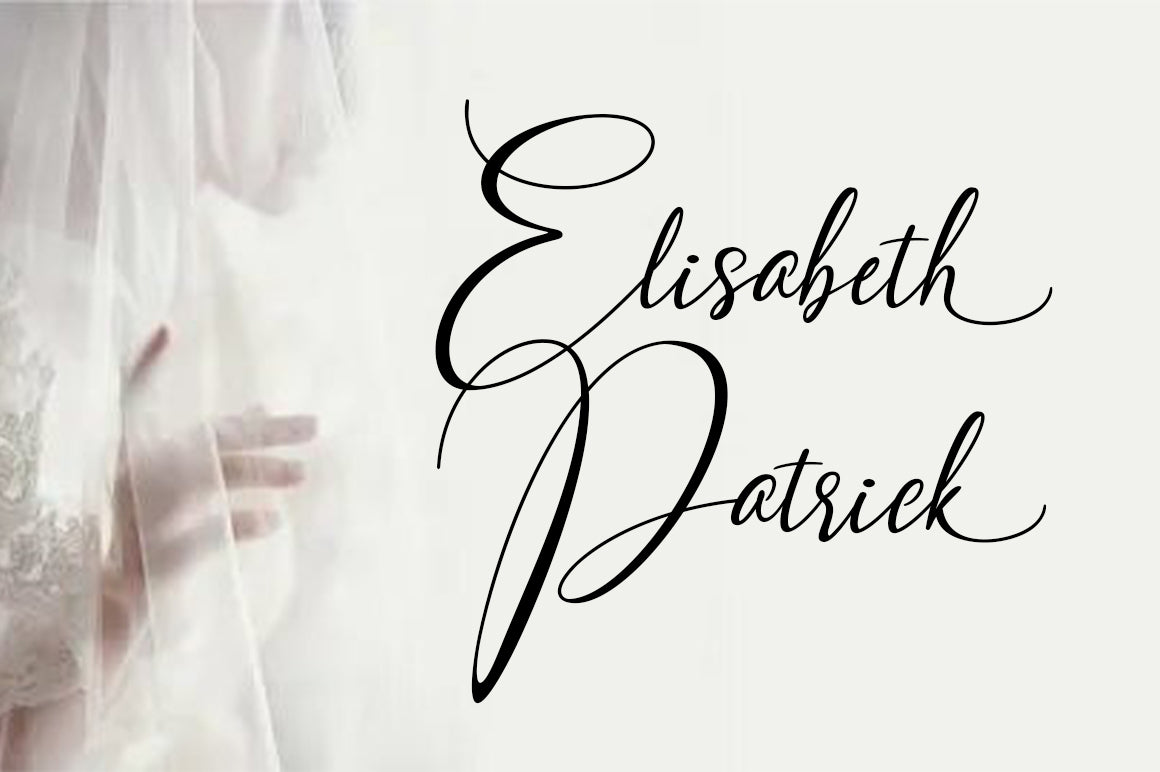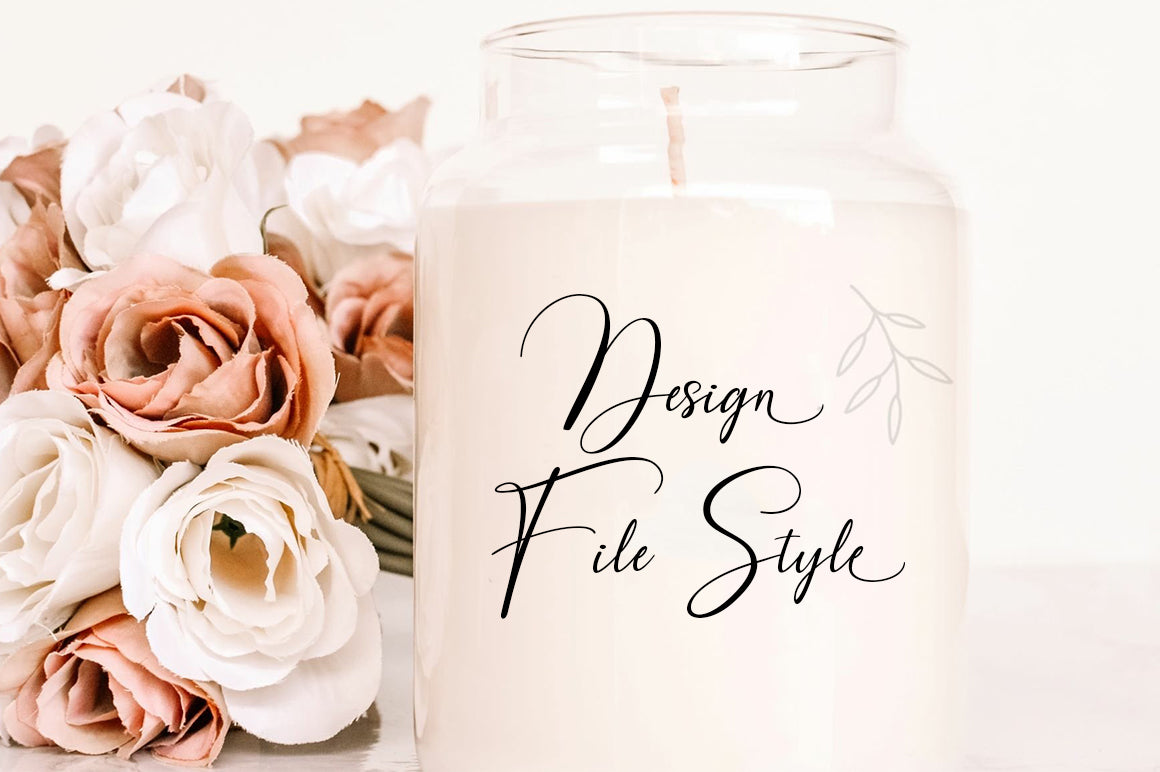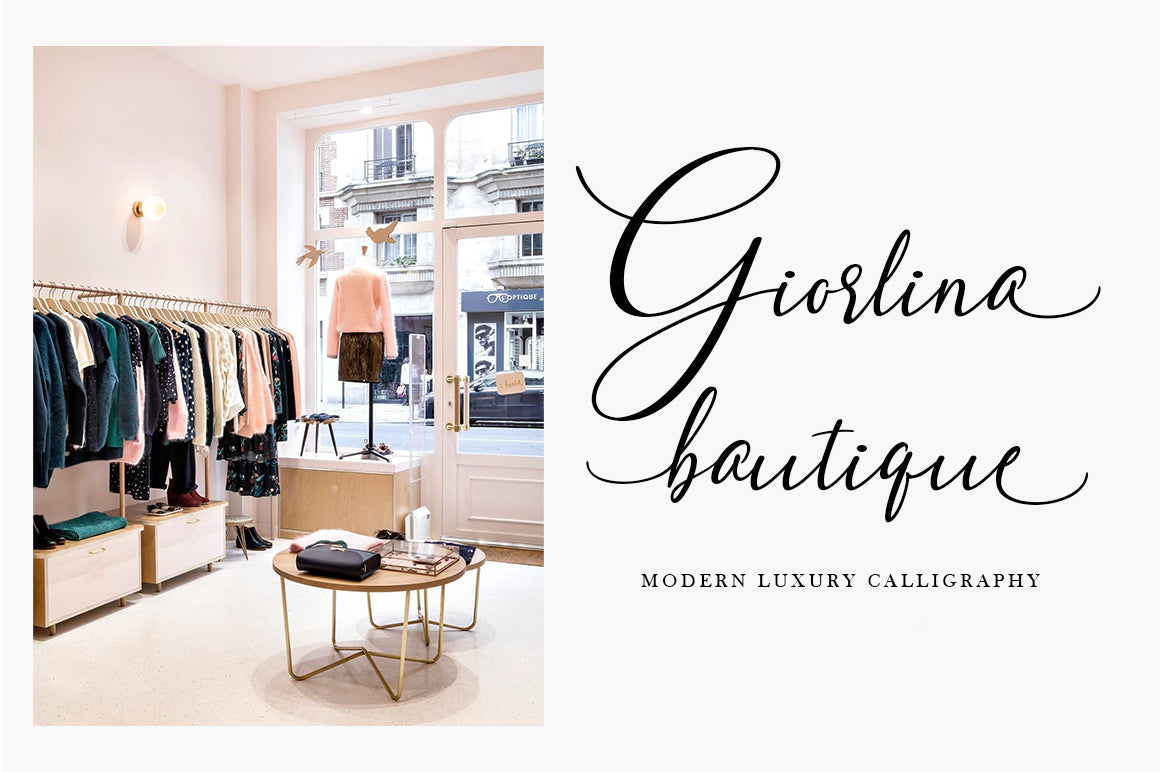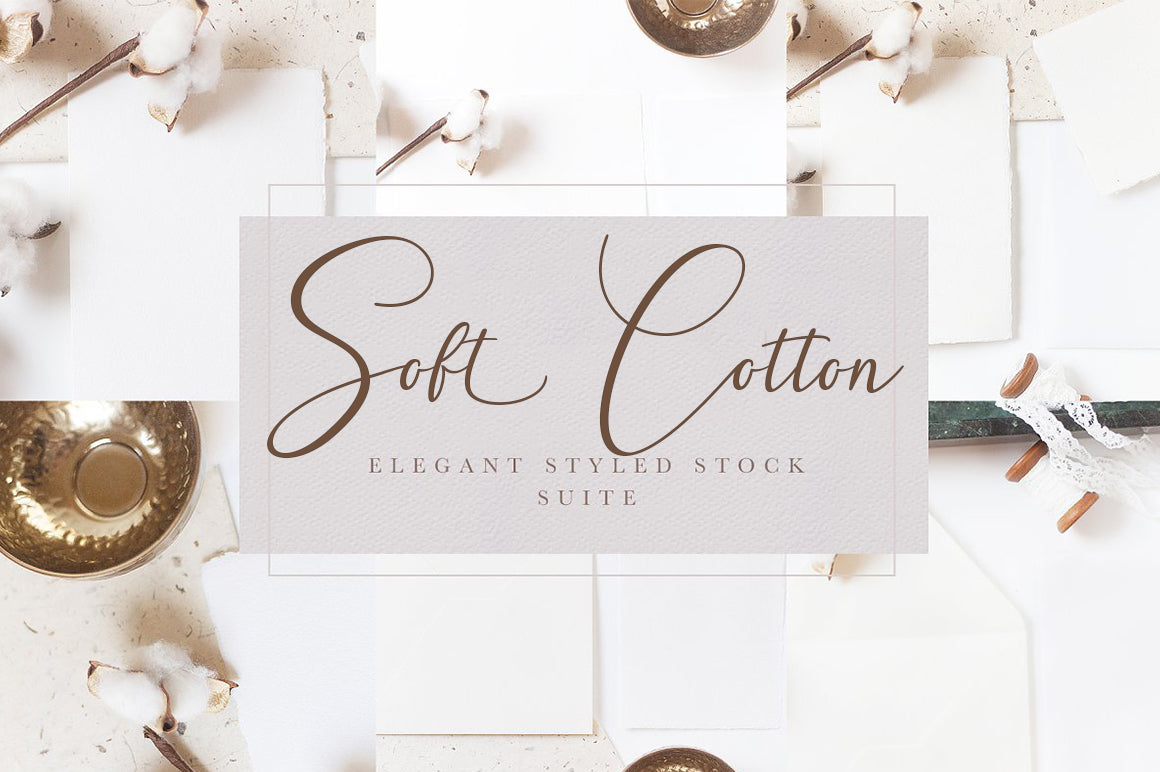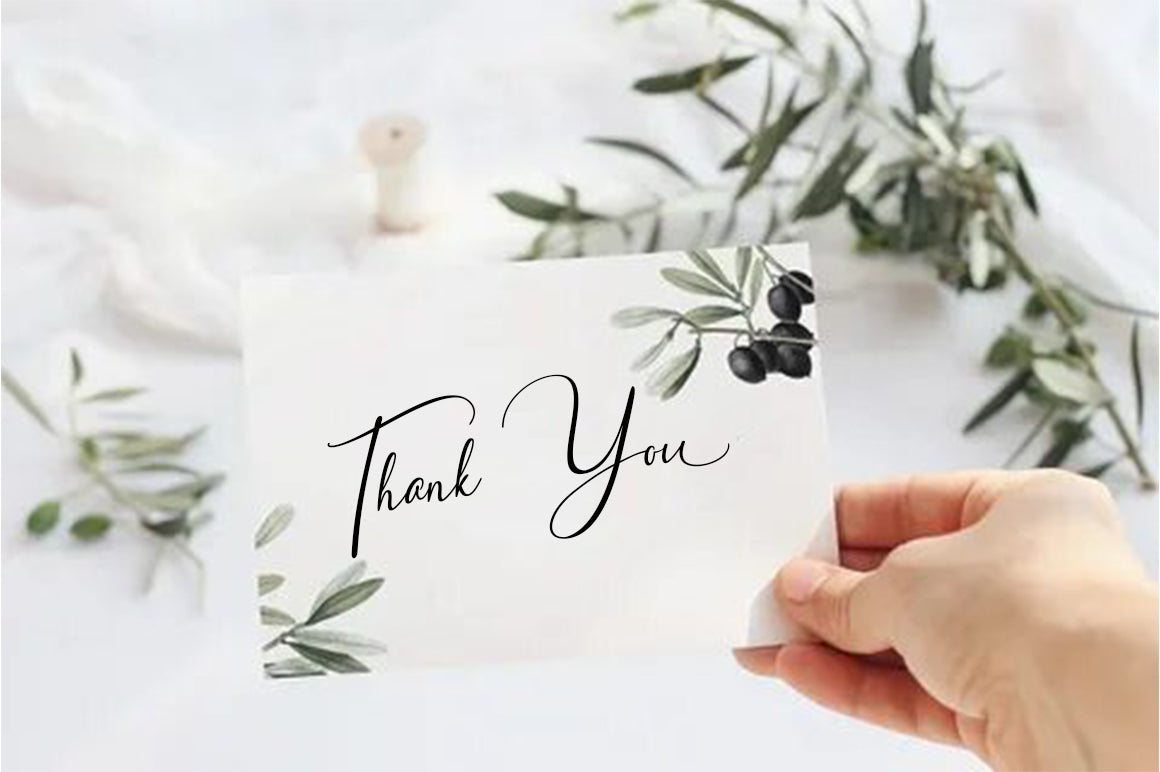
About Amster Style
Amster Style is a natural handwritten font, this font is Perfect for logos, invitations, stationery, wedding designs, social media posts, advertisements, product packaging, product designs, labels, photography, watermarks, special events, or anything else. Amster Style comes with a full set of upper and lower case letters, lowercase swashes, multilingual symbols, numbers, and punctuation marks.